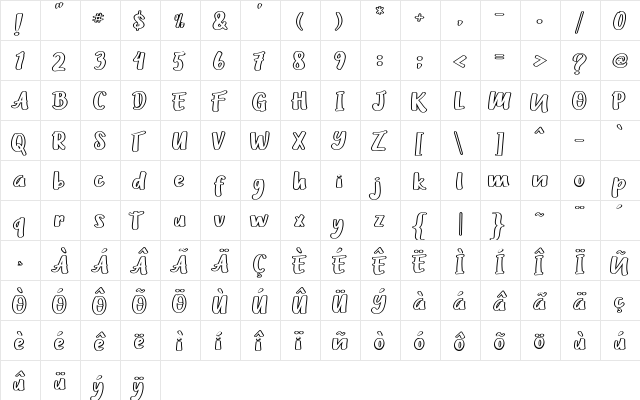
Heilig Outline Regular
Design Context for Heilig Outline Typeface
Heilig Outline brings ornamental detail and strong personality to headlines and identities, where visual impact matters more than quiet functionality.
Font Pairing: Pair with a clean neutral sans-serif for body copy to let Heilig Outline's character lead without overwhelming the composition.
Pro Tip: Treat Heilig Outline as the centrepiece of your typographic hierarchy. One strong heading set in a decorative face can carry an entire layout.